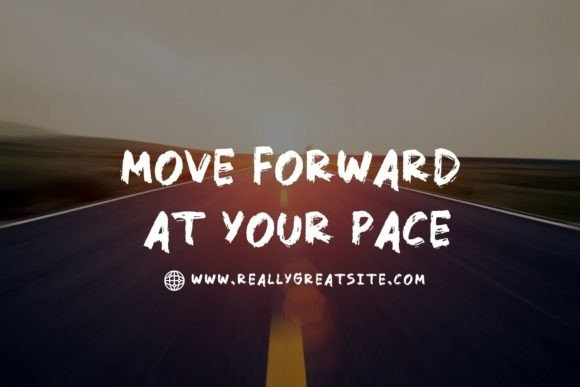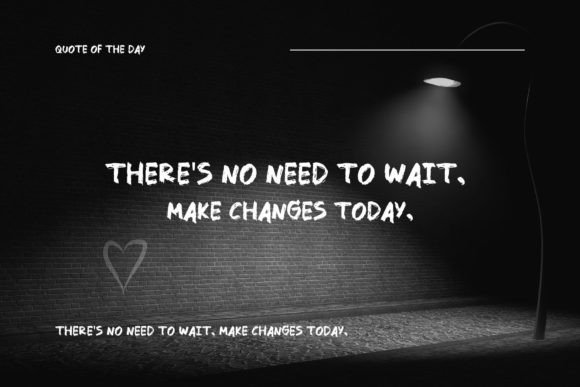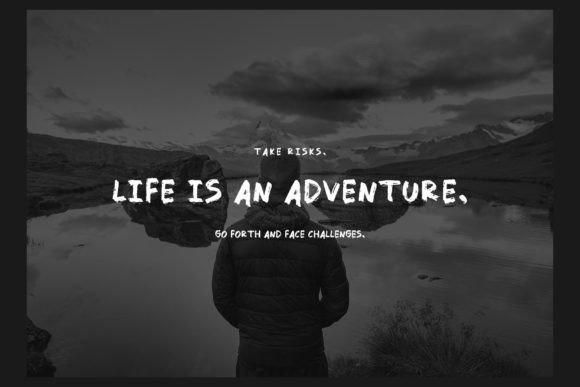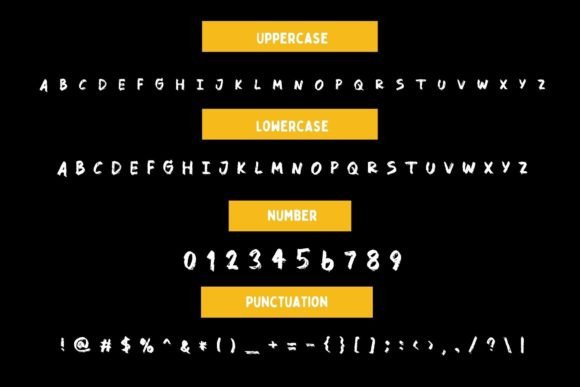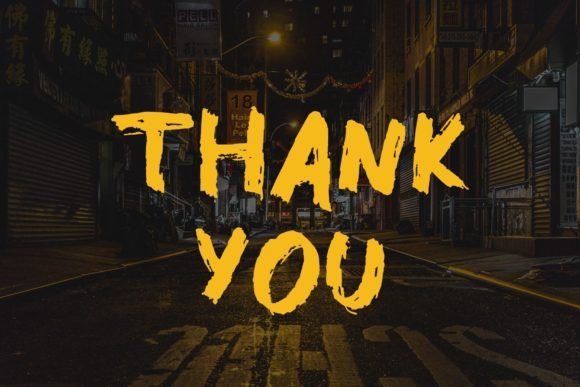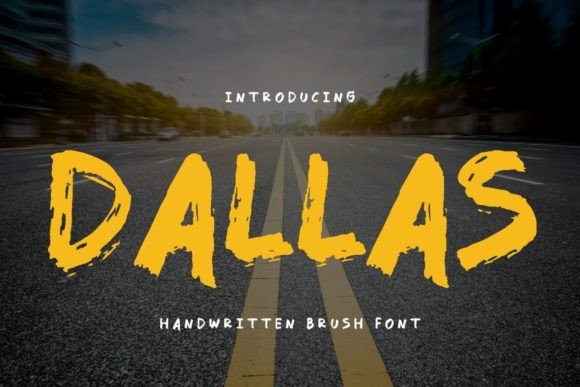
Dallas Font: The Ultimate Choice for Creative Projects
Are you looking for a font that can add a touch of playfulness and authenticity to your designs? Look no further than the Dallas Font! This cool handwritten display brush font is perfect for a wide range of projects, from blog posts and logos to branding, ads, invitations, and more.
What Makes Dallas Font So Special?
The Dallas Font is a unique and stylish font that embodies the perfect blend of playfulness and authenticity. Its handwritten display brush style gives it a personal and approachable feel, making it ideal for designers and crafters who want to add a touch of warmth and personality to their work.
Whether you’re working on a blog post, logo, branding project, ad, invitation, greeting card, planner, photo album, or decoration, the Dallas Font is the perfect choice. Its versatility and flexibility make it easy to use in a variety of contexts, and its stylish design ensures that your work will stand out from the crowd.
Why Choose Dallas Font?
So why choose the Dallas Font for your next project? Here are just a few reasons why it’s a great choice:
- Playful and Authentic: The Dallas Font has a playful and authentic feel that’s perfect for designers and crafters who want to add a personal touch to their work.
- Versatile: The Dallas Font is versatile and can be used in a wide range of projects, from blog posts and logos to branding, ads, invitations, and more.
- Easy to Use: The Dallas Font is easy to use and can be added to any design with just a few clicks.
- High-Quality: The Dallas Font is a high-quality font that’s designed to produce stunning results.
How to Use Dallas Font in Your Designs
Using the Dallas Font in your designs is easy! Here are a few tips to get you started:
- Choose the Right Size: Choose a size that’s large enough to be readable, but small enough to fit your design.
- Experiment with Colors: The Dallas Font looks great in a variety of colors, so don’t be afraid to experiment and find the perfect hue for your design.
- Pair it with Other Fonts: The Dallas Font pairs well with other fonts, so try combining it with a sans-serif font for a stylish contrast.
Tips and Tricks for Getting the Most Out of Dallas Font
Here are a few tips and tricks for getting the most out of the Dallas Font:
- Use it for Headings: The Dallas Font is perfect for headings and titles, so use it to add a touch of personality to your blog posts, articles, and other written content.
- Add it to Your Logo: The Dallas Font is a great choice for logos, so consider adding it to your brand’s logo for a personal and approachable feel.
- Use it for Invitations: The Dallas Font is perfect for invitations, so use it to create personalized and stylish invites for weddings, parties, and other special events.
In conclusion, the Dallas Font is a cool handwritten display brush font that’s perfect for designers and crafters who want to add a touch of playfulness and authenticity to their work. Its versatility, flexibility, and stylish design make it a great choice for a wide range of projects, from blog posts and logos to branding, ads, invitations, and more. So why wait? Add the Dallas Font to your designs today and enjoy the results!